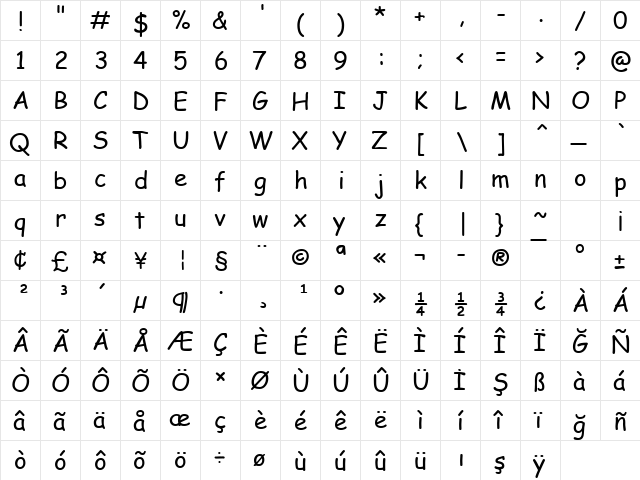
TR Comic Sans MS Regular
Design Context for TR Comic Sans MS Typeface
TR Comic Sans MS has an approachable, lighthearted character — its loose, expressive forms are well-suited to children's content, casual branding, and fun-first design.
Well-suited to food and beverage brands with personality, educational materials, and fun-forward identities.
Font Pairing: Pairs well with a rounded or humanist sans for body copy, maintaining the friendly tone without relying on TR Comic Sans MS to carry extended reading.
Pro Tip: Use TR Comic Sans MS at larger display sizes where its expressive character can land. Pair with a clean, simple sans for body copy to maintain readability.